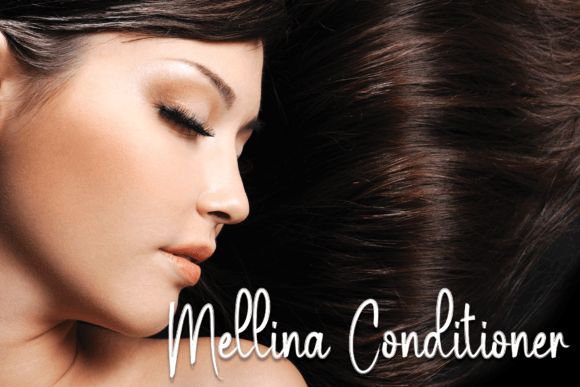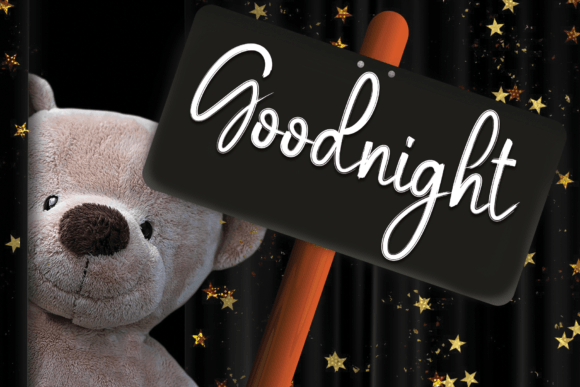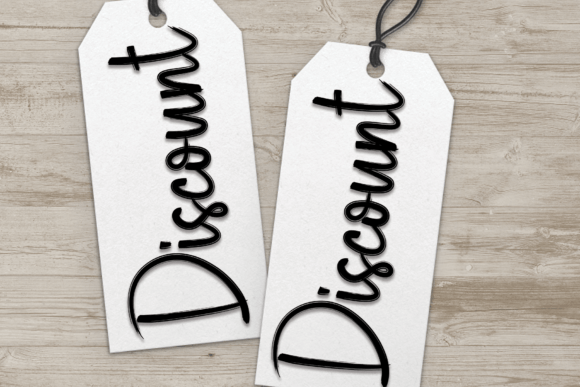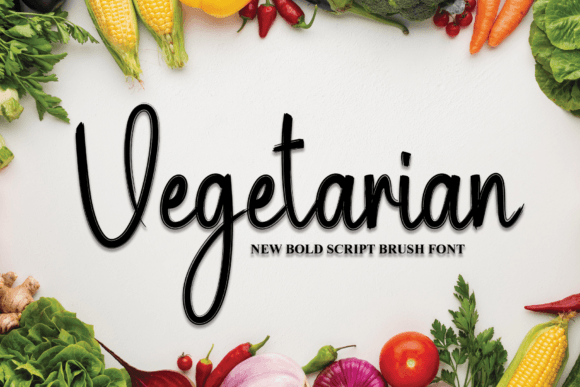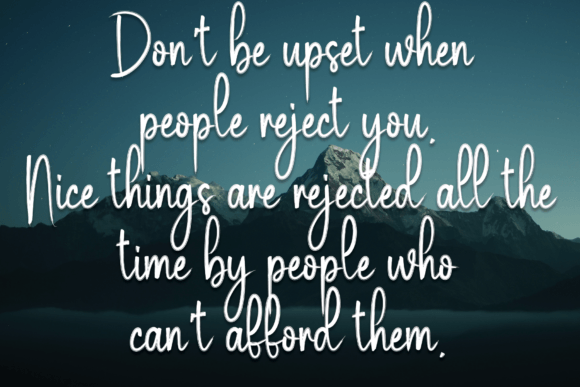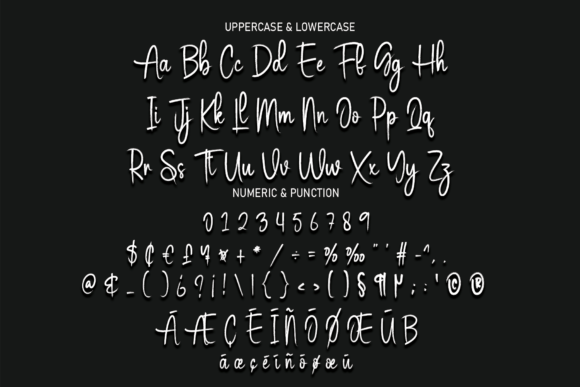
Introducing December Font: Elevate Your Designs with a Touch of Handwritten Elegance
As the year comes to a close, designers and crafters are on the lookout for fresh and exciting typography to elevate their projects. If you’re seeking a font that exudes a sense of warmth, personality, and sophistication, look no further than December Font. This stunning collection of handwritten letters is perfect for a wide range of applications, from wall displays and wedding invitations to social media post logos, advertisements, product packaging, and more.
The Perfect Blend of Style and Versatility
December Font boasts a unique and stylish aesthetic that is sure to capture the attention of your audience. With its delicate, cursive script and subtle flair, this font is ideal for designers and crafters who want to add a touch of elegance and whimsy to their work. Whether you’re creating a beautiful wedding invitation, a eye-catching advertisement, or a stunning product design, December Font is the perfect choice.
One of the best things about December Font is its incredible versatility. This font can be used for a wide range of projects, including:
- Wall displays and signage
- Social media post logos and graphics
- Advertisements and marketing materials
- Product packaging and design
- Labels and branding
- Photography and watermarks
- Invitations and event materials
- Stationery and paper crafts
Why Choose December Font?
So why choose December Font over other typography options? Here are just a few reasons why this font stands out:
- Unique and eye-catching design: December Font boasts a one-of-a-kind aesthetic that is sure to capture the attention of your audience.
- Highly versatile: This font can be used for a wide range of projects, from digital designs to print materials.
- Easy to read and understand: Despite its elegant and cursive script, December Font is highly legible and easy to read.
- Perfect for adding a personal touch: With its handwritten feel, December Font is ideal for designers and crafters who want to add a personal touch to their work.
Tips for Using December Font
To get the most out of December Font, here are a few tips to keep in mind:
- Use it sparingly: While December Font is certainly eye-catching, it’s best to use it sparingly to avoid overwhelming your design.
- Pair it with complementary fonts: Consider pairing December Font with complementary fonts to create a visually appealing contrast.
- Experiment with colors and textures: Don’t be afraid to experiment with different colors and textures to add depth and interest to your design.
Whether you’re a seasoned designer or a crafty DIY enthusiast, December Font is sure to become a favorite in your typography collection. So go ahead, get creative, and see the amazing things you can do with this incredible font!